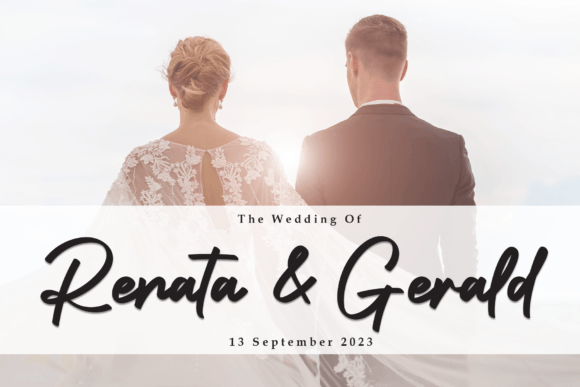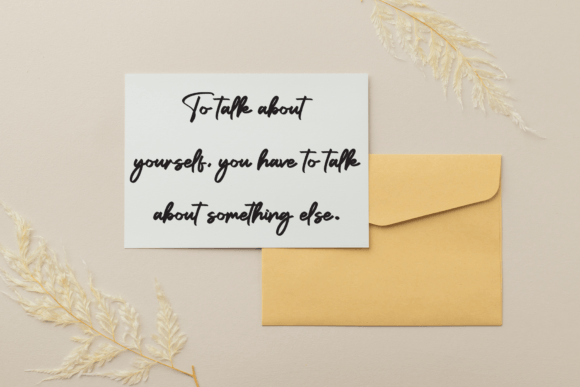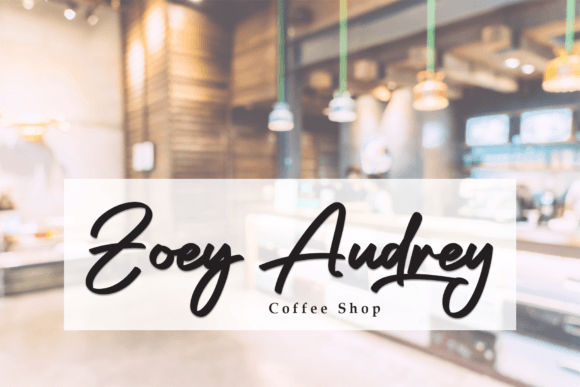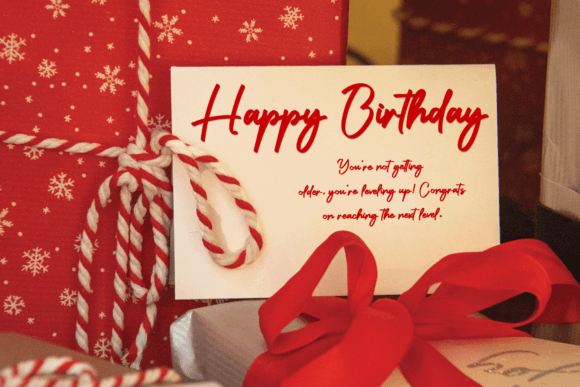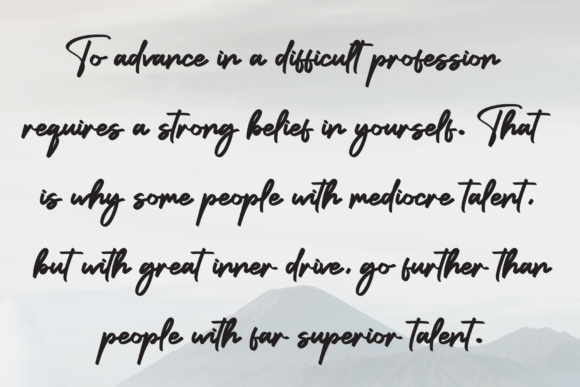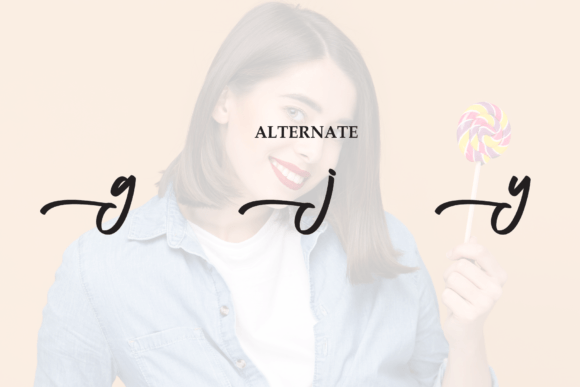
Getting Candy Font: The Sweetest Addition to Your Design Collection
Are you on the hunt for a font that’s as sweet as it is versatile? Look no further than Getting Candy, a delightful handwritten font that’s perfect for designers and crafters alike. With its natural and unique style, Getting Candy is sure to add a touch of whimsy and charm to any design project.
The Story Behind Getting Candy
Getting Candy is a carefully crafted font that’s designed to evoke a sense of fun and playfulness. Its sweet and friendly demeanor makes it an excellent choice for a wide range of design applications, from branding and packaging to invitations and DIY projects. Whether you’re a professional designer or a crafty hobbyist, Getting Candy is sure to become a go-to font in your collection.
What Makes Getting Candy So Special?
So, what sets Getting Candy apart from other fonts out there? Here are just a few reasons why this font is a standout:
- Natural and Unique Style: Getting Candy boasts a refreshingly natural and unique style that’s sure to capture attention. Its handwritten charm makes it feel approachable and friendly, perfect for designs that need a personal touch.
- Versatility: The only limit to using Getting Candy is your imagination! This font can be used for a wide range of design projects, from sweet treats and baking to fashion and lifestyle.
Getting Candy is an excellent addition to any designer’s or crafter’s toolkit. Here are just a few ways you can use this delightful font:
- Branding and Packaging: Add a touch of whimsy to your brand’s packaging and marketing materials with Getting Candy. This font is perfect for businesses that want to convey a sense of fun and approachability.
- DIY Projects: Getting Candy is perfect for crafty hobbyists who love to create their own DIY projects. Use it to make custom signs, invitations, and decorations that are sure to impress.
- Invitations and Stationery: Make your invitations and stationery stand out with Getting Candy. This font is perfect for weddings, birthday parties, and other celebrations.
Tips for Using Getting Candy
Here are a few tips for getting the most out of Getting Candy:
- Experiment with Colors: Getting Candy looks amazing in a variety of colors, from bright and bold to soft and pastel. Experiment with different color combinations to find the perfect look for your design.
- Mix and Match: Don’t be afraid to mix and match Getting Candy with other fonts to create a unique look. This font pairs well with both serif and sans serif fonts.
- Play with Size: Getting Candy looks great in a range of sizes, from small and delicate to large and bold. Experiment with different sizes to add visual interest to your design.
Getting Candy is a sweet and friendly handwritten font that’s perfect for designers and crafters alike. With its natural and unique style, versatility, and ease of use, this font is sure to become a favorite in your collection. Whether you’re looking to add a touch of whimsy to your branding and packaging or create custom DIY projects, Getting Candy is the perfect choice. So why wait? Download Getting Candy today and start creating your own sweet designs!